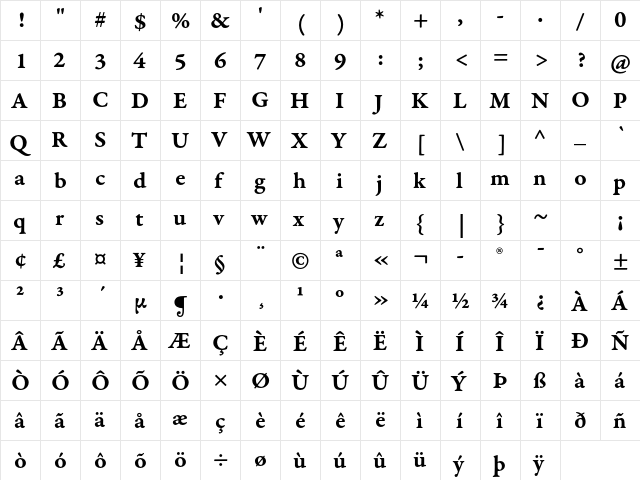
Garamond Premier Pro Semibold Caption
| Designer | Robert Slimbach |
Design Context for Garamond Premier Pro Typeface
Garamond Premier Pro is a composed and adaptable typeface that performs quietly and consistently across a wide range of design contexts. The heavy weight commands attention and anchors typographic hierarchies.